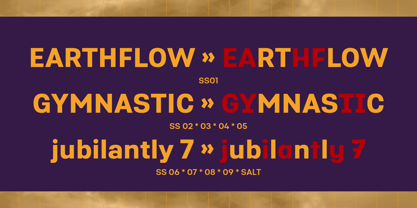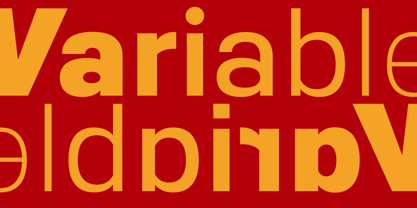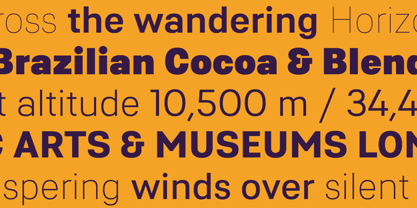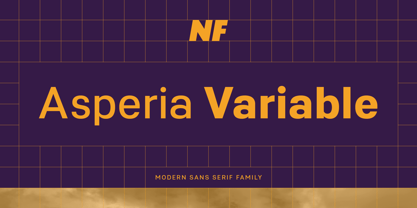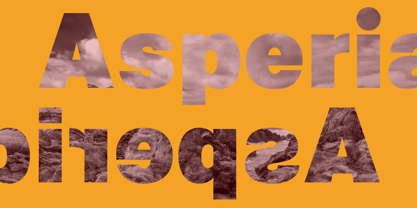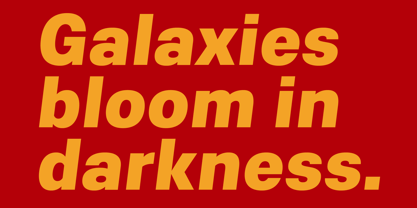
Asperia Variable
The Asperia Variable Font Family was designed by Nikolay Savchuk and published by NicolassFonts. Asperia Variable contains 1 styles. More about this family
Asperia Variable is the flexible companion to the Asperia family, offering the entire weight range—from Thin to Black—plus matching italics. This variable format allows for precise control over weight and style, enabling seamless transitions and infinite fine-tuning to match any design need. Just like the static styles, Asperia Variable contains over 900 glyphs per style and supports a rich set of OpenType features. Whether you’re crafting responsive web typography, dynamic branding, editorial layouts, or digital interfaces, Asperia Variable delivers the same contemporary, cohesive voice of the original family—now with the added versatility and efficiency of the variable font format.